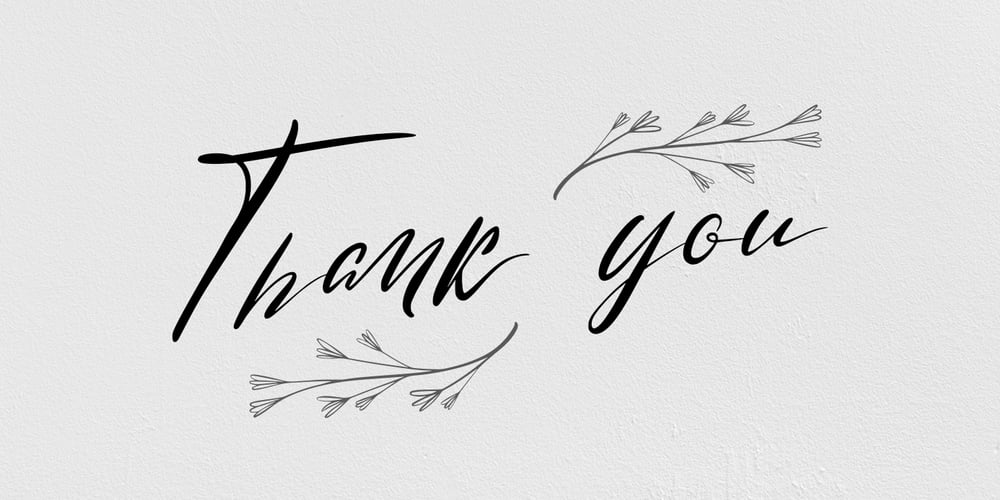
Rose Malow Font Family was designed by Fadli Ramadhan Iskandar and published by Attype Studio. Rose Malow contains 1 styles and family package options. Introducing Rose Malow, a Modern Script Font. Rose Malow is a lovely font: it is perfect for branding, logos, invitations, stationery, wedding designs, social media posts, handwritten quotes, product packaging, merchandise, blog design, Book/Cover Title and more. What’s Included : – Rose Malow (.otf/.ttf) – Multilingual Support – More than 50 ligatures – Works on PC & Mac – Simple installations – Accessible in the Adobe Illustrator, Adobe Photoshop, Adobe InDesign Thank you for your purchase! Hope you enjoy with our font!